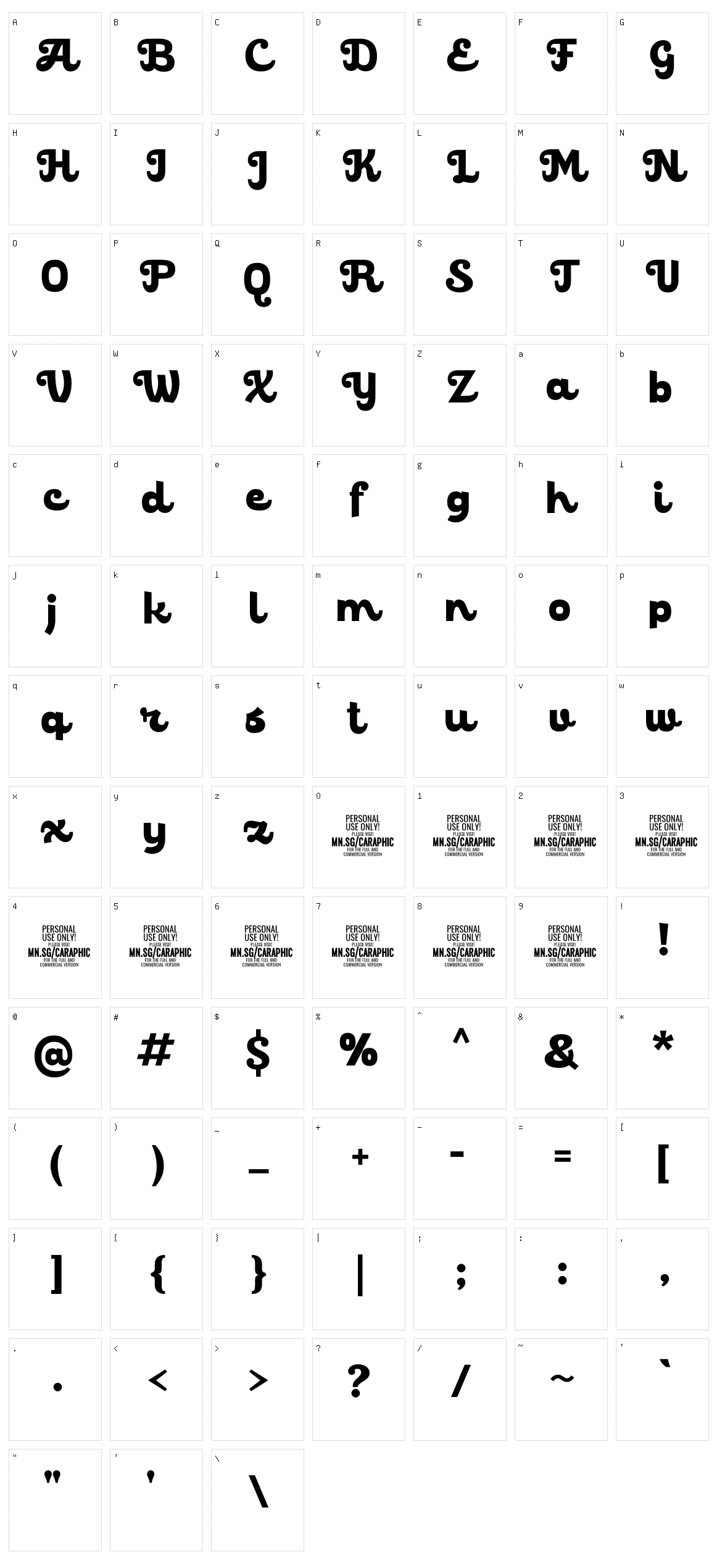
Caraphic Script marries the crisp elegance of script typefaces with the beauty of Middle Eastern design.
Its strokes, bold and assertive, dance with a weightiness that commands attention, yet it retains a sharp clarity that ensures readability. While undeniably decorative, there's an inherent professional balance in its design, making it a top pick for logotypes and branding.
Its unique character emerges from its seamless support for both Latin and Arabic scripts, bridging worlds and cultures in a single, harmonious typeface. This isn't just a font; it's a global statement, speaking to audiences far and wide with unmatched sophistication.
The font is built with advanced OpenType functionality and has a guaranteed top-notch quality, containing stylistic and contextual alternates, ligatures, and more features; all to give you full control and customizability. It has extensive lingual support, covering all Arabic and Latin-based languages, from Northern Europe to South Africa, from America to South-East Asia. It contains all characters and symbols you'll ever need, including all punctuation and numbers.
Caraphic Script's unmatched beauty and versatility are crafted with precision by Mans Greback. It stands as a testament to his skill in intertwining emotion, culture, and utility within typography. With each font he creates, Greback solidifies his reputation for producing designs that resonate deeply while providing exceptional functionality for professionals everywhere.